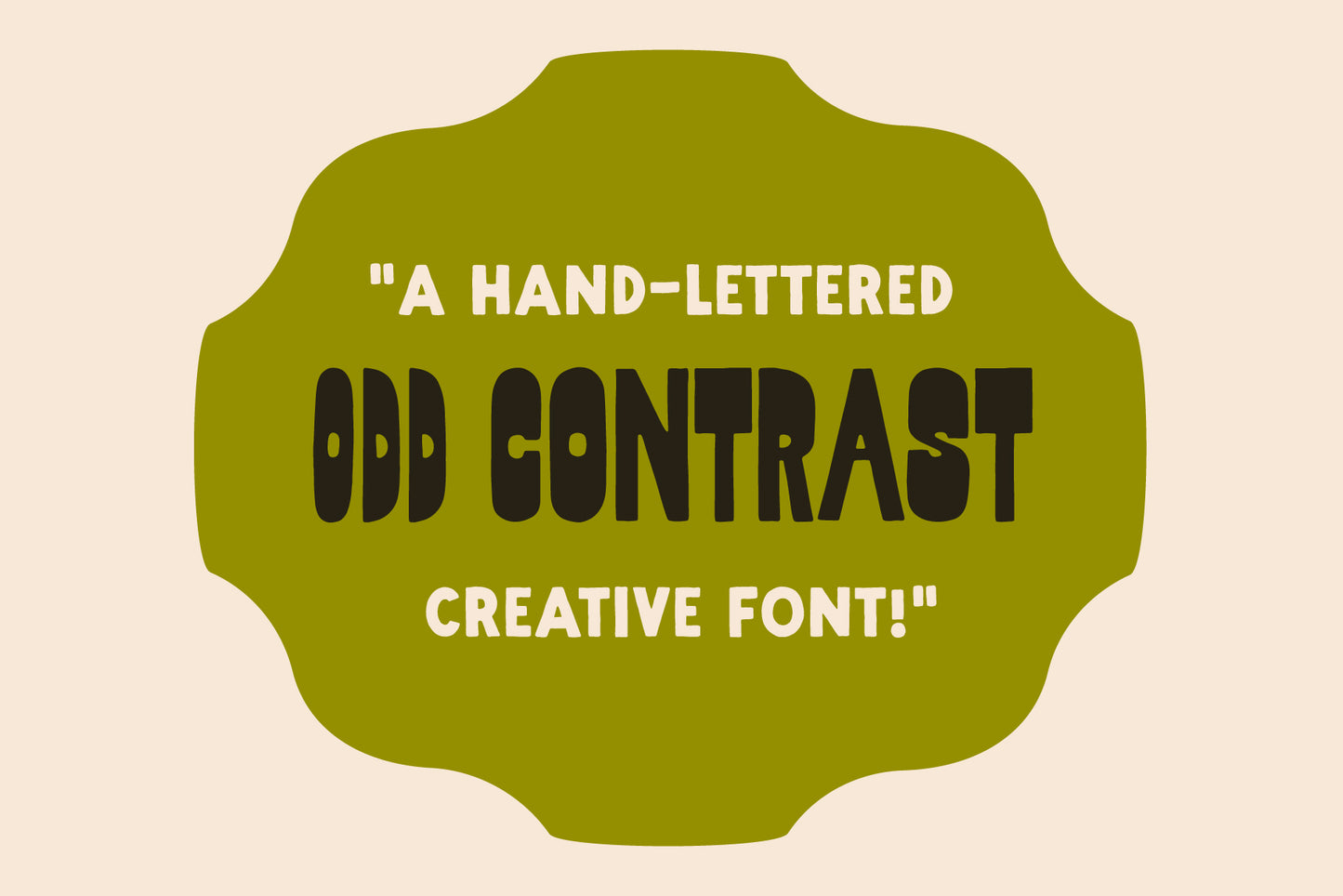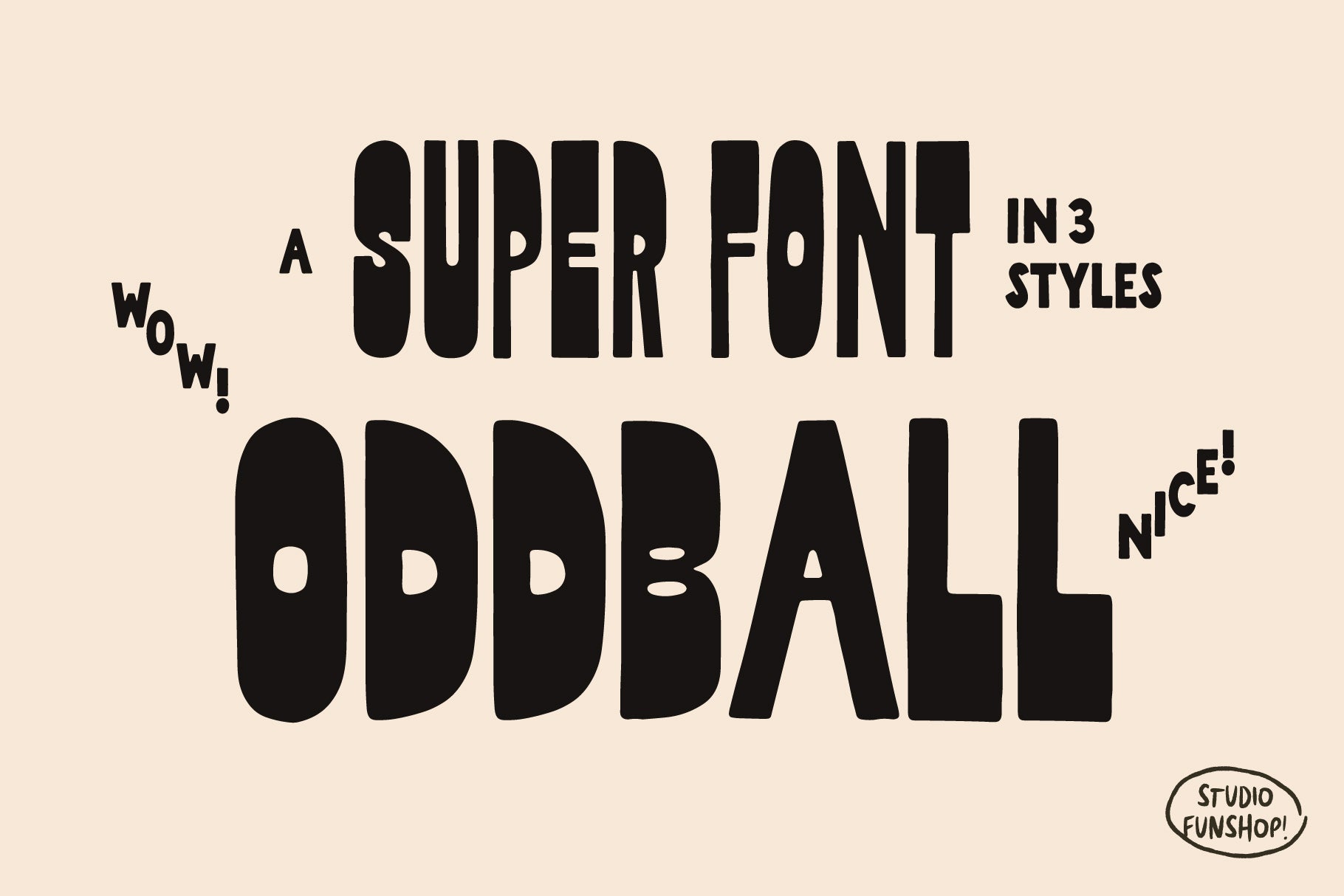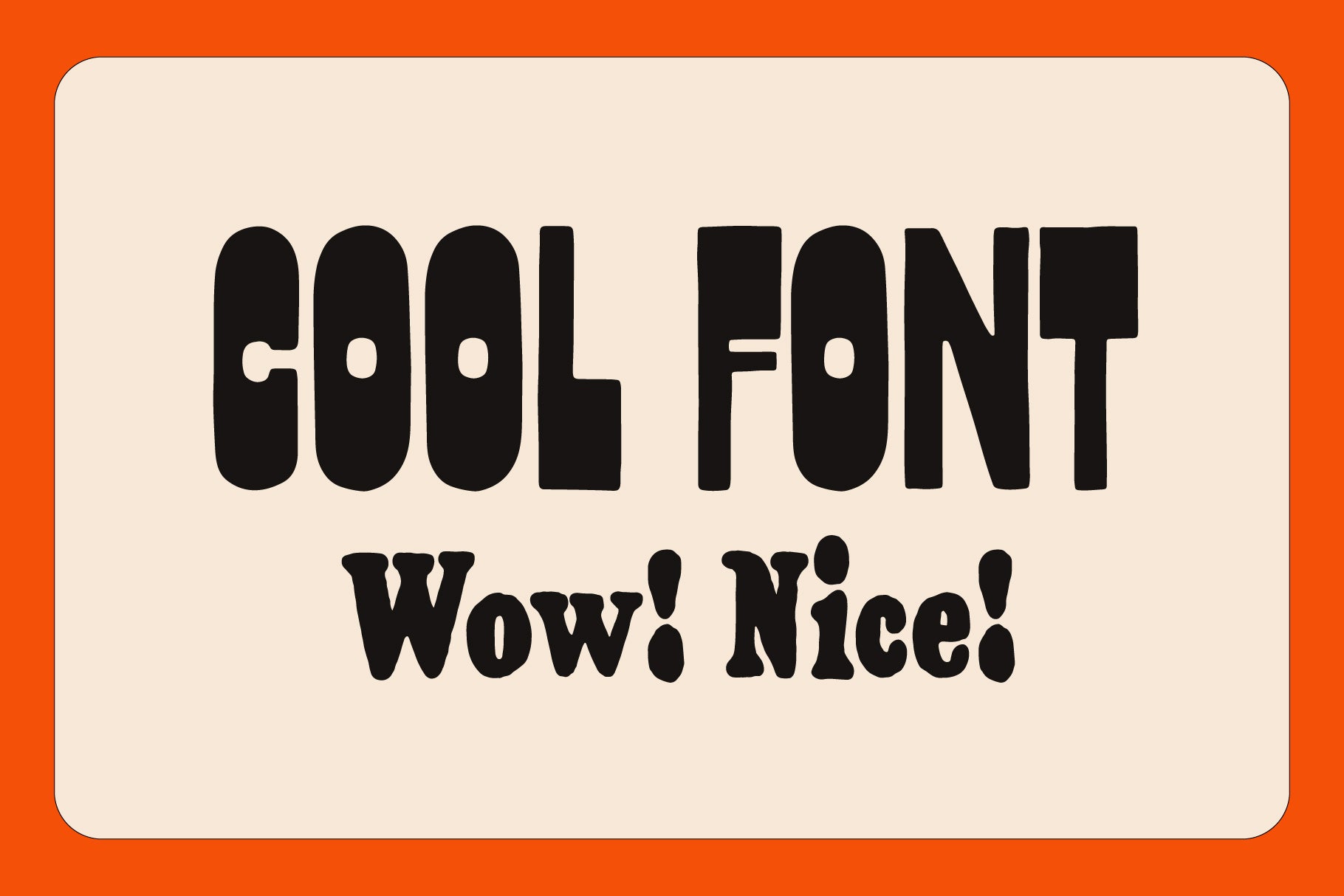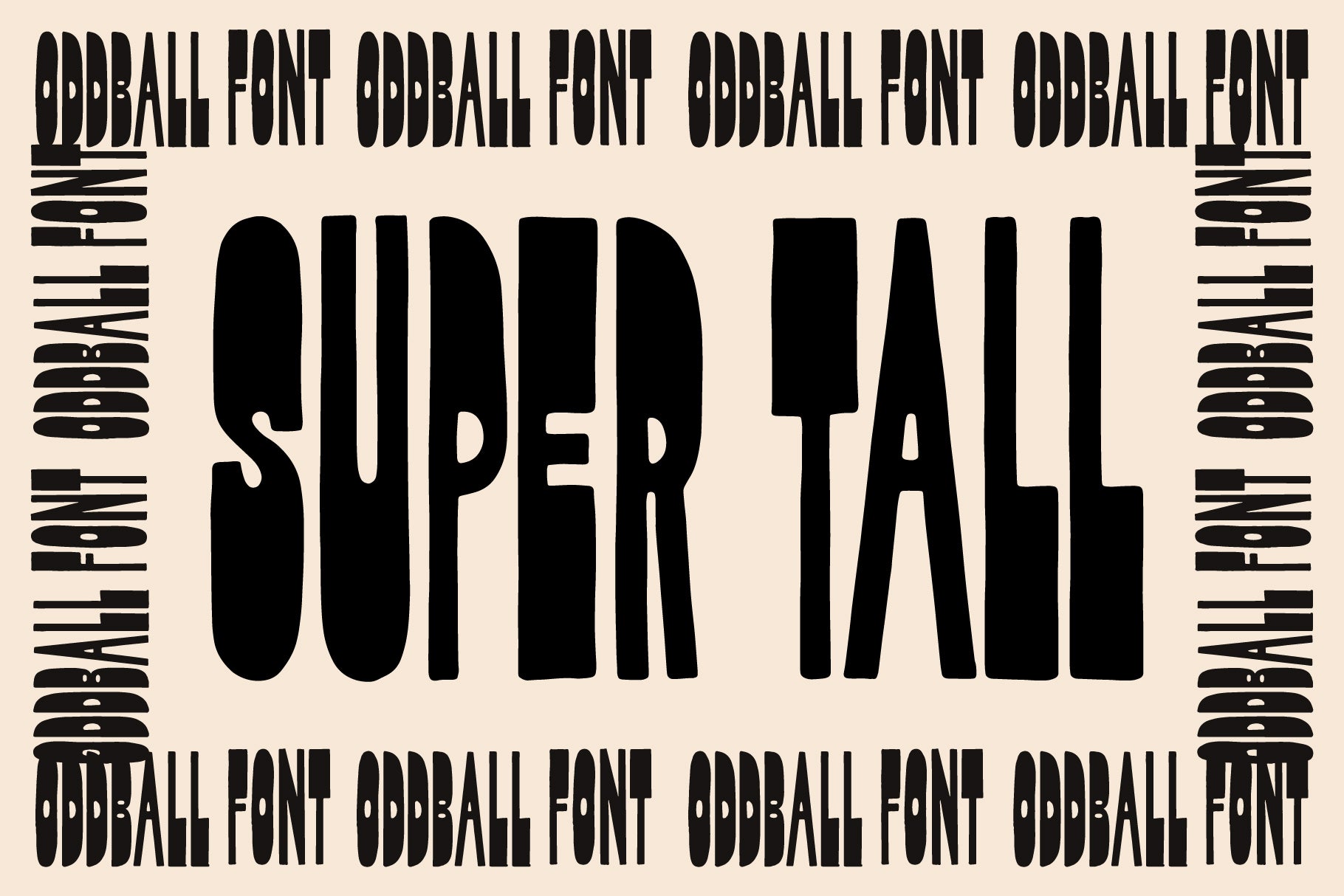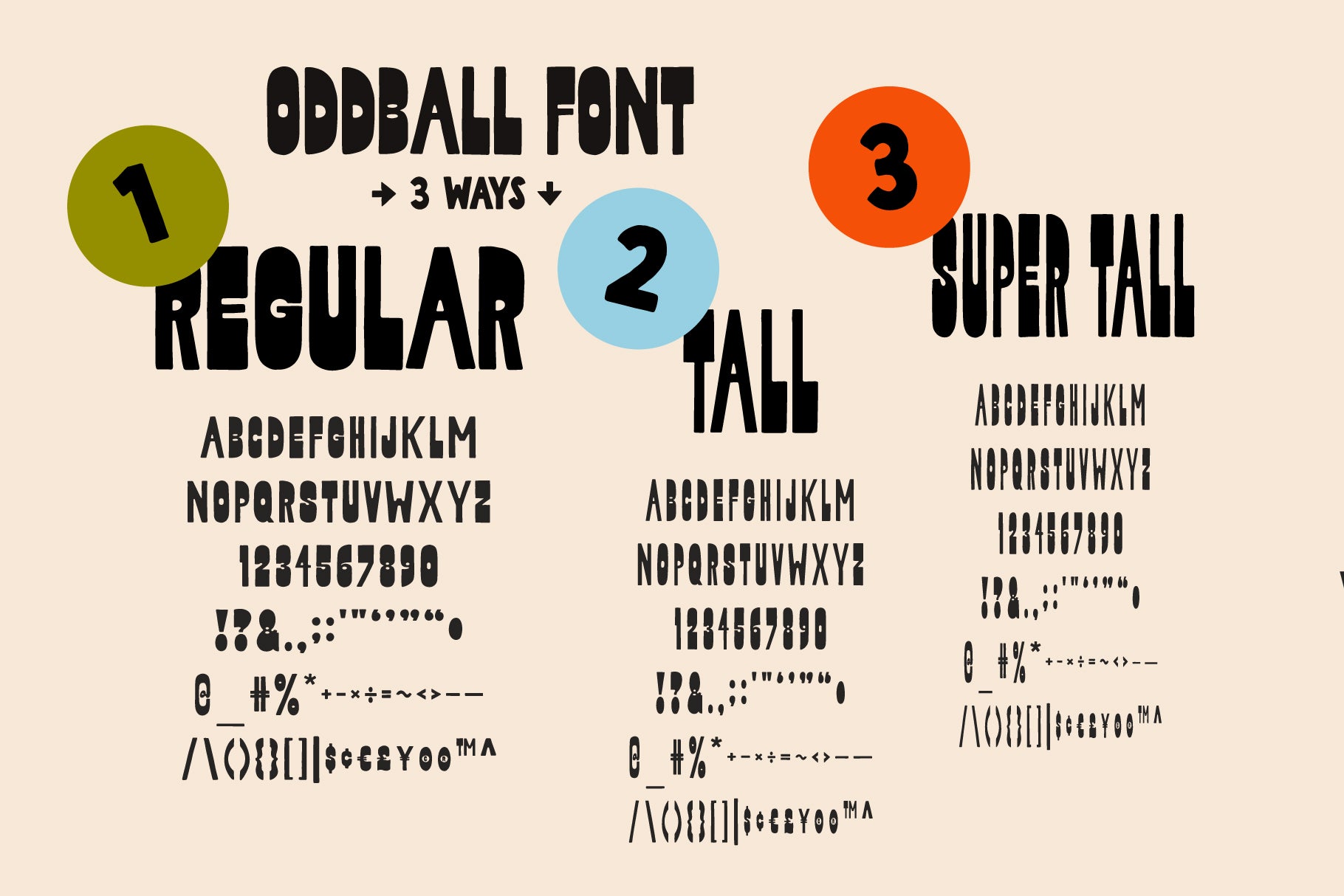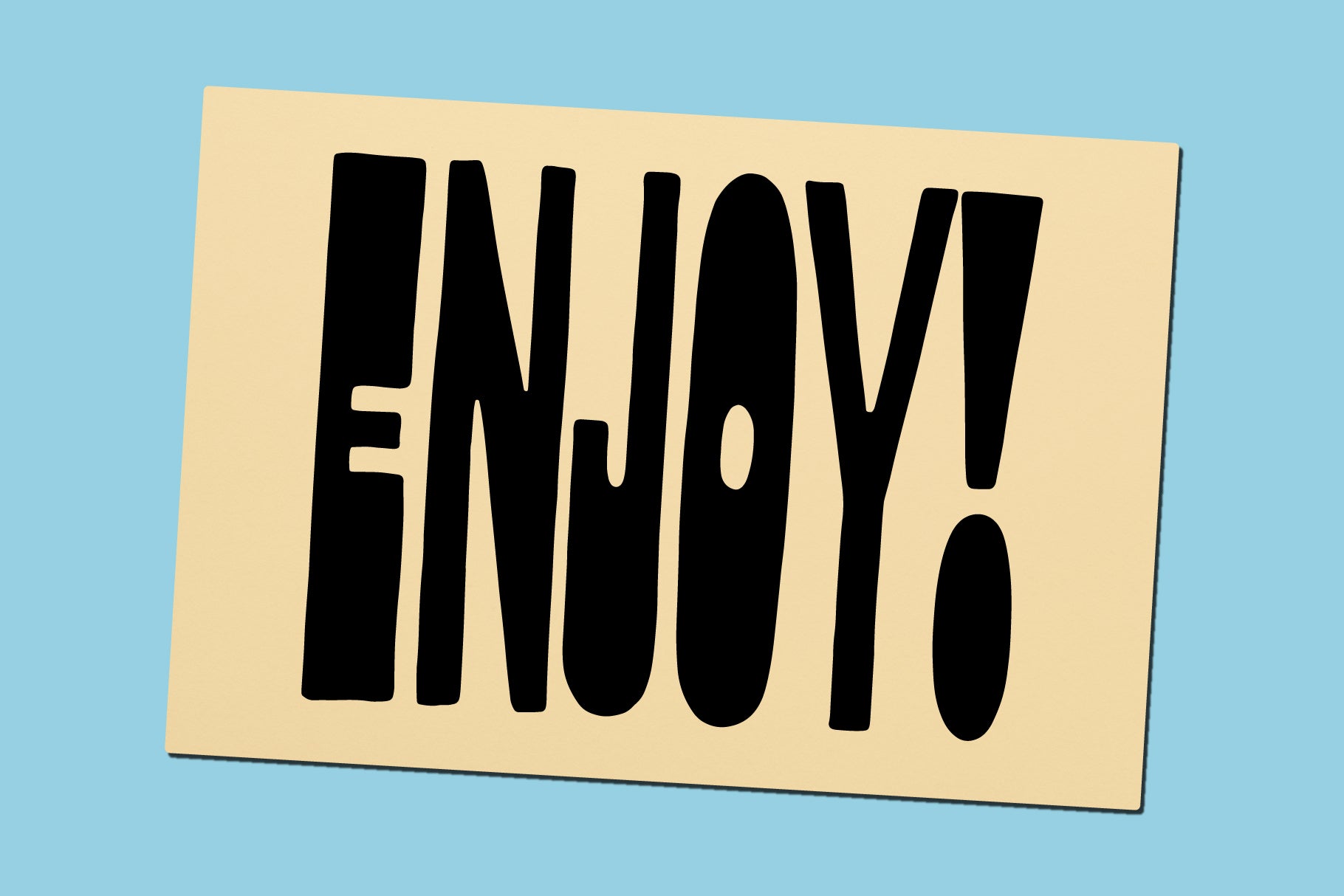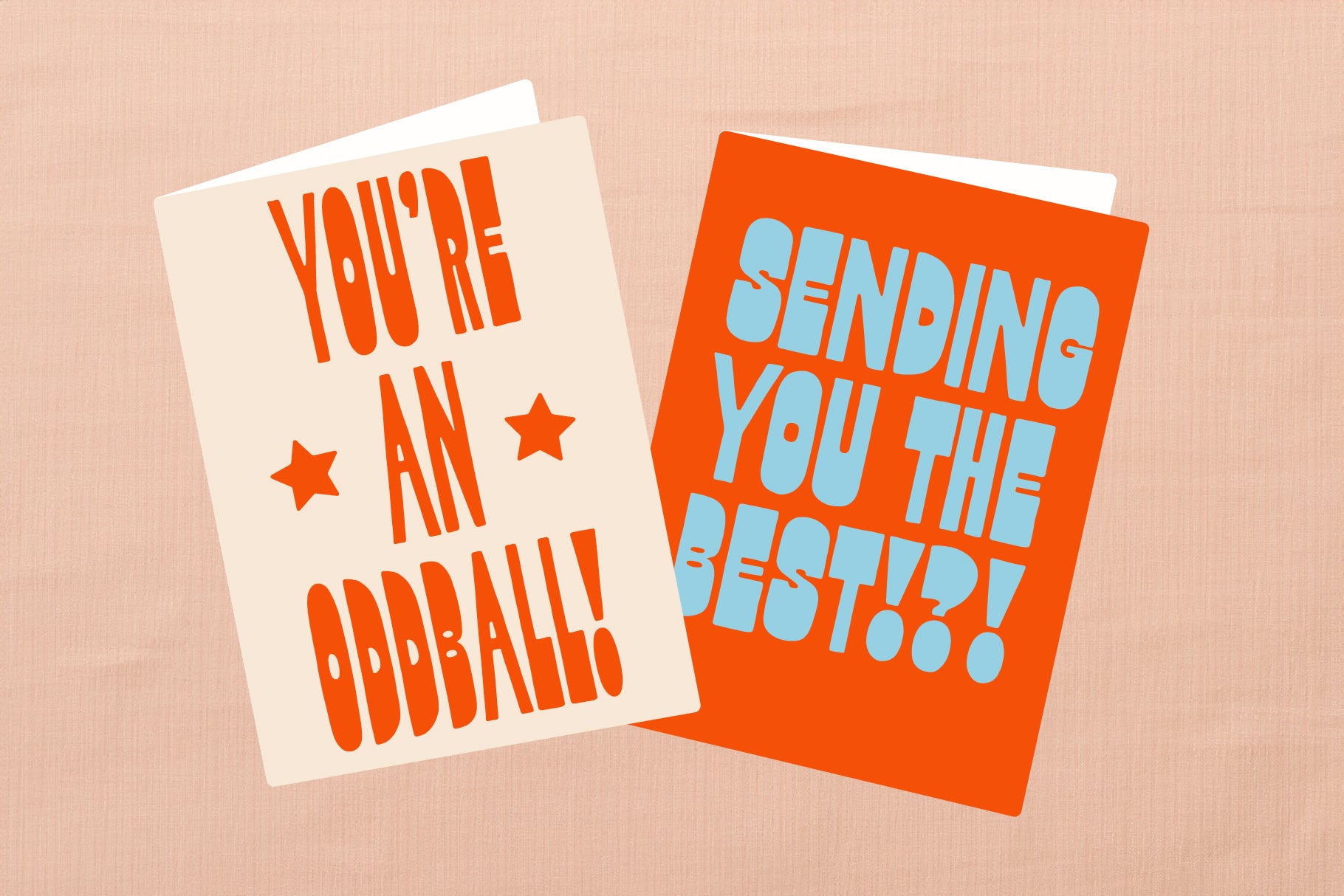
Oddball - Reverse Contrast Hand-lettered Font
Oddball is a bold, hand-lettered font family with a quirky reverse contrast style and tons of personality.
Inspired by a mix of vintage charm and modern design, it’s the perfect blend of old and new.
This collection includes three unique heights, Regular, Tall, and SuperTall, so you can mix and match to create fun, eye-catching compositions. Each letter was drawn by hand, giving your work that effortless hand-lettered feel without having to sketch it yourself.
Perfect for logos, posters, signage, quotes, and anything that calls for a bold handmade look.
- Uppercase A–Z
- Numbers, Symbols & Punctuation